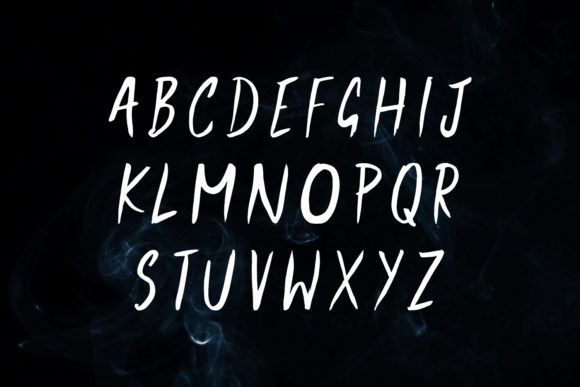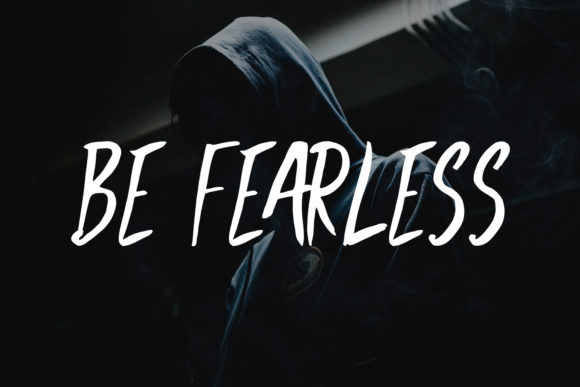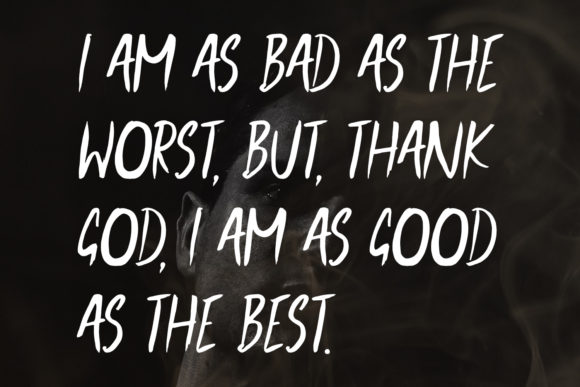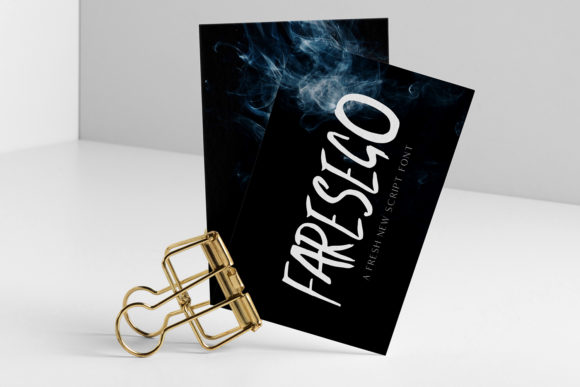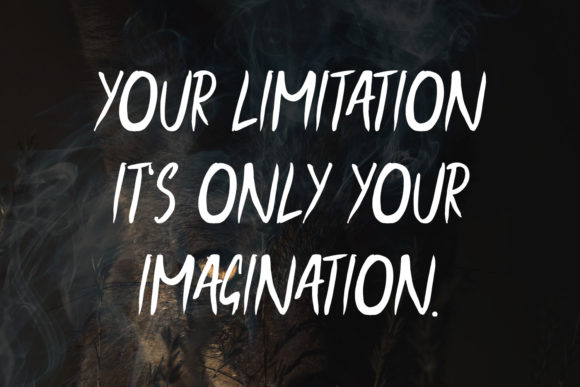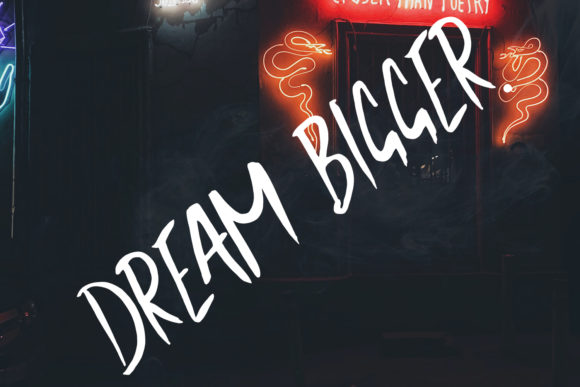
Faresego Font
About Faresego Font
Faresego is a modern and elegant script font, created with the help of a brush pen. Clean and a little bit quirky, this font is the perfect fit for all of your logos, branding, social media, and crafty DIY projects.